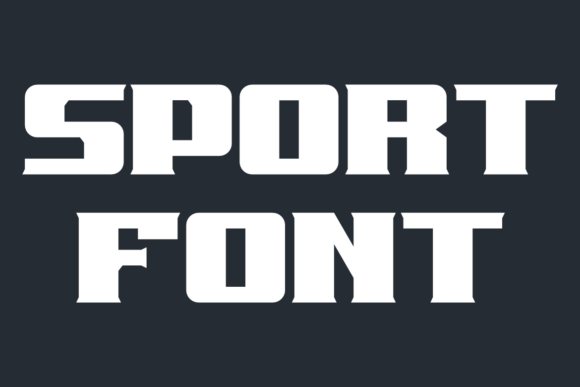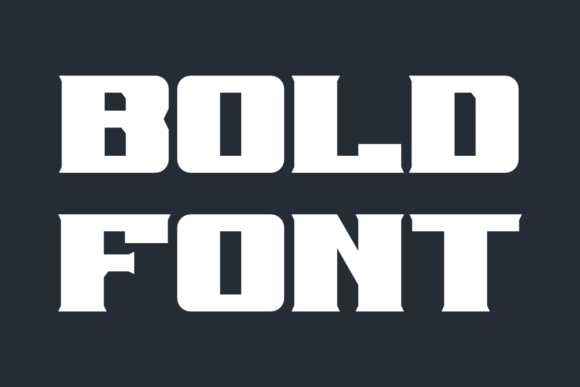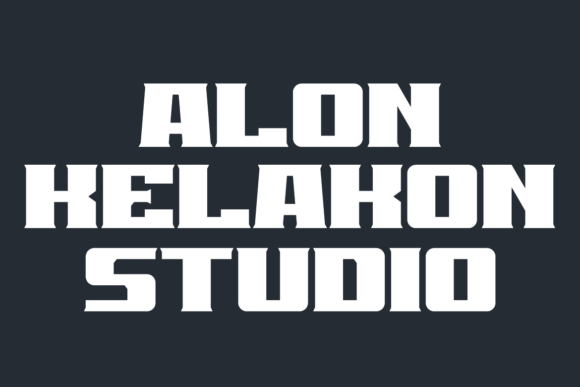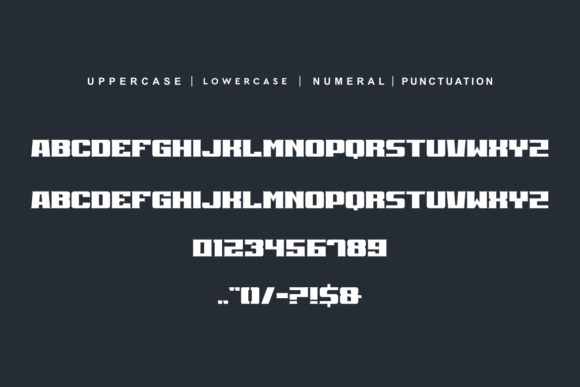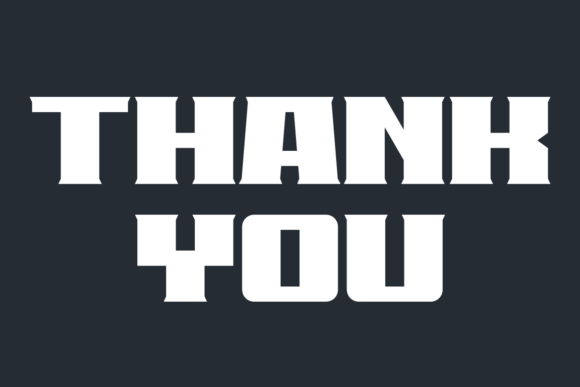
Cobra Speedy Font: Unleash Your Creativity with this Unique Typeface
Are you a designer, crafter, or creative enthusiast looking for a font that can elevate your visual projects? Look no further than the Cobra Speedy Font, a distinctive and versatile typeface that’s ready to use for a wide range of applications. In this article, we’ll dive into the features and benefits of this exciting font, and explore how it can add a touch of personality to your designs.
What Makes Cobra Speedy Font Unique?
Cobra Speedy Font stands out from the crowd with its bold, edgy, and dynamic design. Its unique character set and sleek lines make it perfect for creating eye-catching labels, posters, movie titles, album covers, logos, and more. Whether you’re working on a commercial project or a personal craft, this font is sure to grab attention and leave a lasting impression.
Key Features of Cobra Speedy Font
- Ready to Use: Cobra Speedy Font is conveniently packaged and ready to use for a variety of design applications, including labeling, clothing, movie screens, posters, movie titles, gigs, album covers, logos, and more.
- Unique Character Set: This font boasts a distinctive character set that sets it apart from more traditional typefaces. Its bold and edgy design makes it perfect for creating striking visuals.
Applications for Cobra Speedy Font
Cobra Speedy Font is an incredibly versatile typeface that can be used in a wide range of design applications. Here are just a few ideas to get you started:
- Labeling: Add a bold and eye-catching touch to your product labels, packaging, or branding materials.
- Clothing: Create striking apparel designs, including t-shirts, hoodies, hats, and more.
- Movie Screens: Use Cobra Speedy Font to create attention-grabbing movie titles, credits, or promotional materials.
- Posters: Design bold and eye-catching posters for events, concerts, or marketing campaigns.
- Movie Titles: Add a touch of excitement to your movie titles, taglines, or trailer graphics.
- Gigs: Create memorable promotional materials for live events, concerts, or festivals.
- Album Covers: Give your music releases a bold and eye-catching look with Cobra Speedy Font.
- Logos: Use this font to create unique and memorable logos for your brand, business, or personal projects.
Why Choose Cobra Speedy Font?
With so many fonts available, why choose Cobra Speedy Font? Here are just a few reasons why this typeface stands out:
- Unique Design: Cobra Speedy Font offers a fresh and distinctive design that’s sure to grab attention.
- Versatility: This font can be used in a wide range of design applications, from labeling to movie screens.
- High-Quality: This font is designed to deliver high-quality results, with crisp and clear lines that look great at any size.